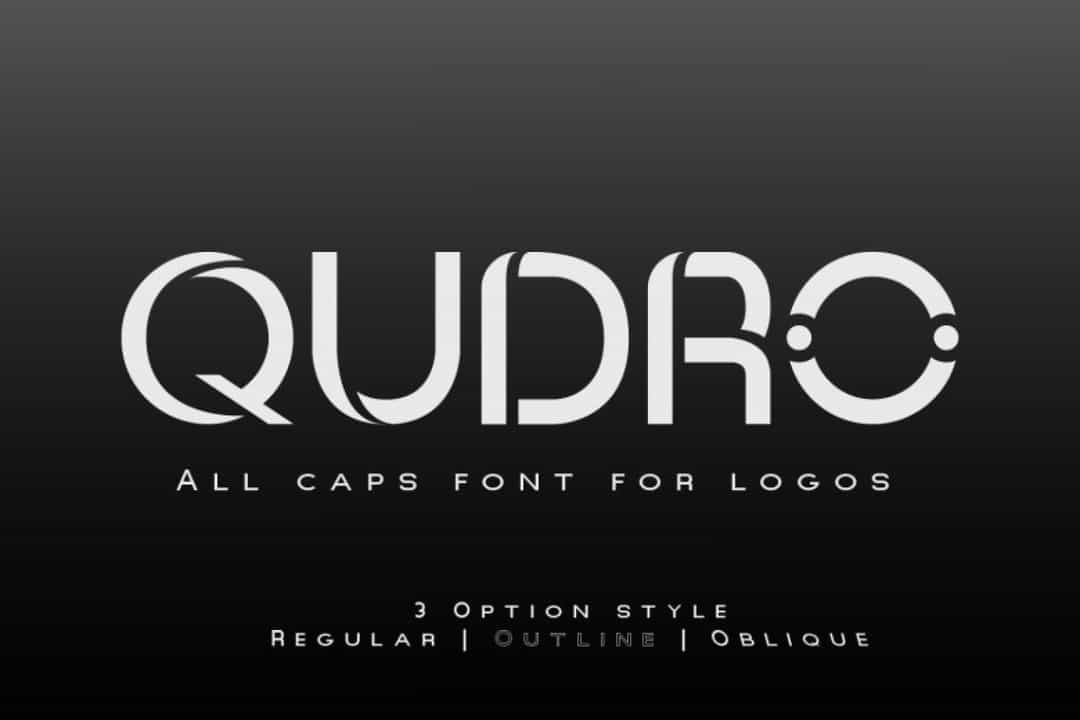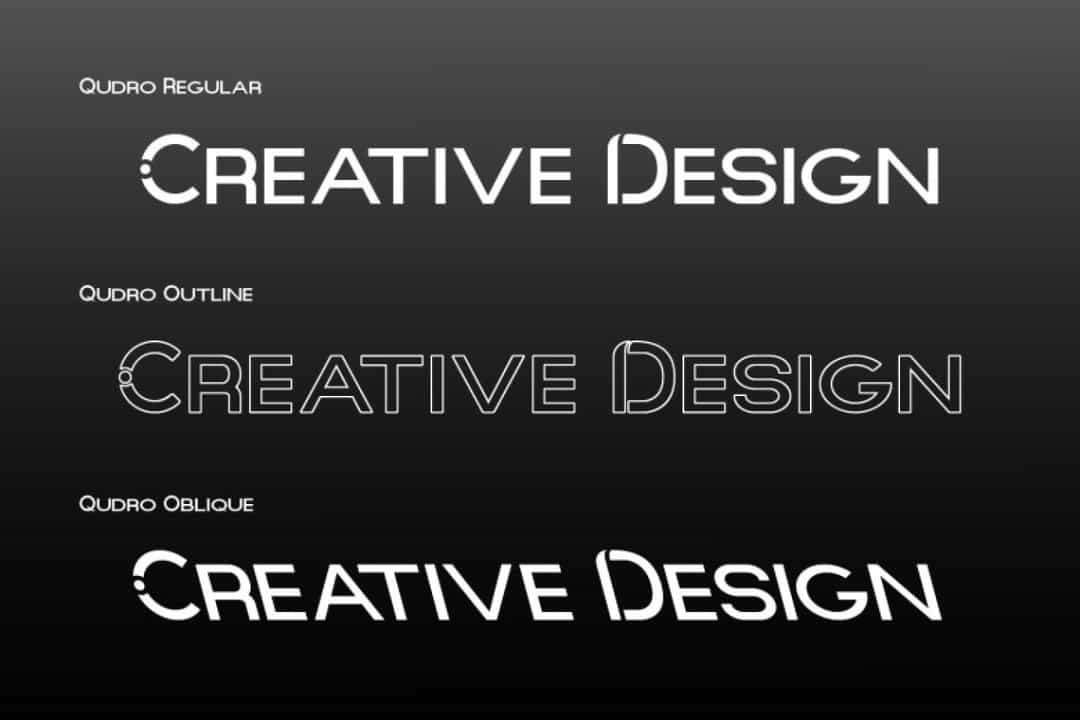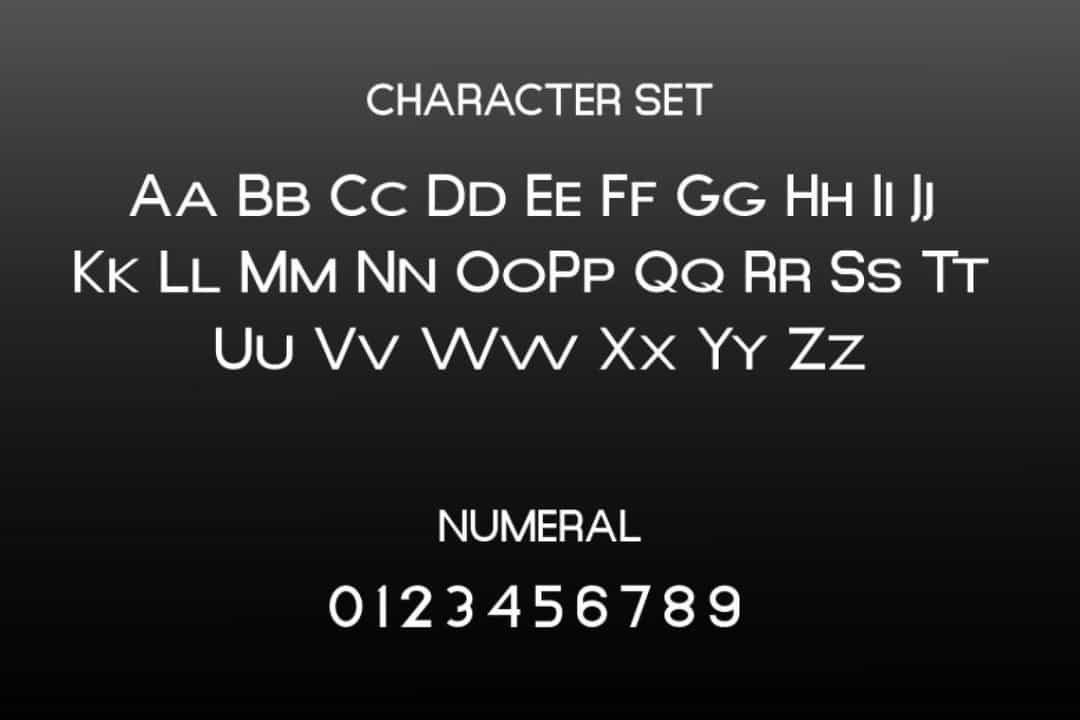
Qudro Display Font is an innovative new font designed to be minimalist for logo designs. Additionally, this font can also be utilized for other creative projects like film titles, branding campaigns and taglines. Take advantage of alternative letters to add visual interest and make the design even more aesthetically pleasing.